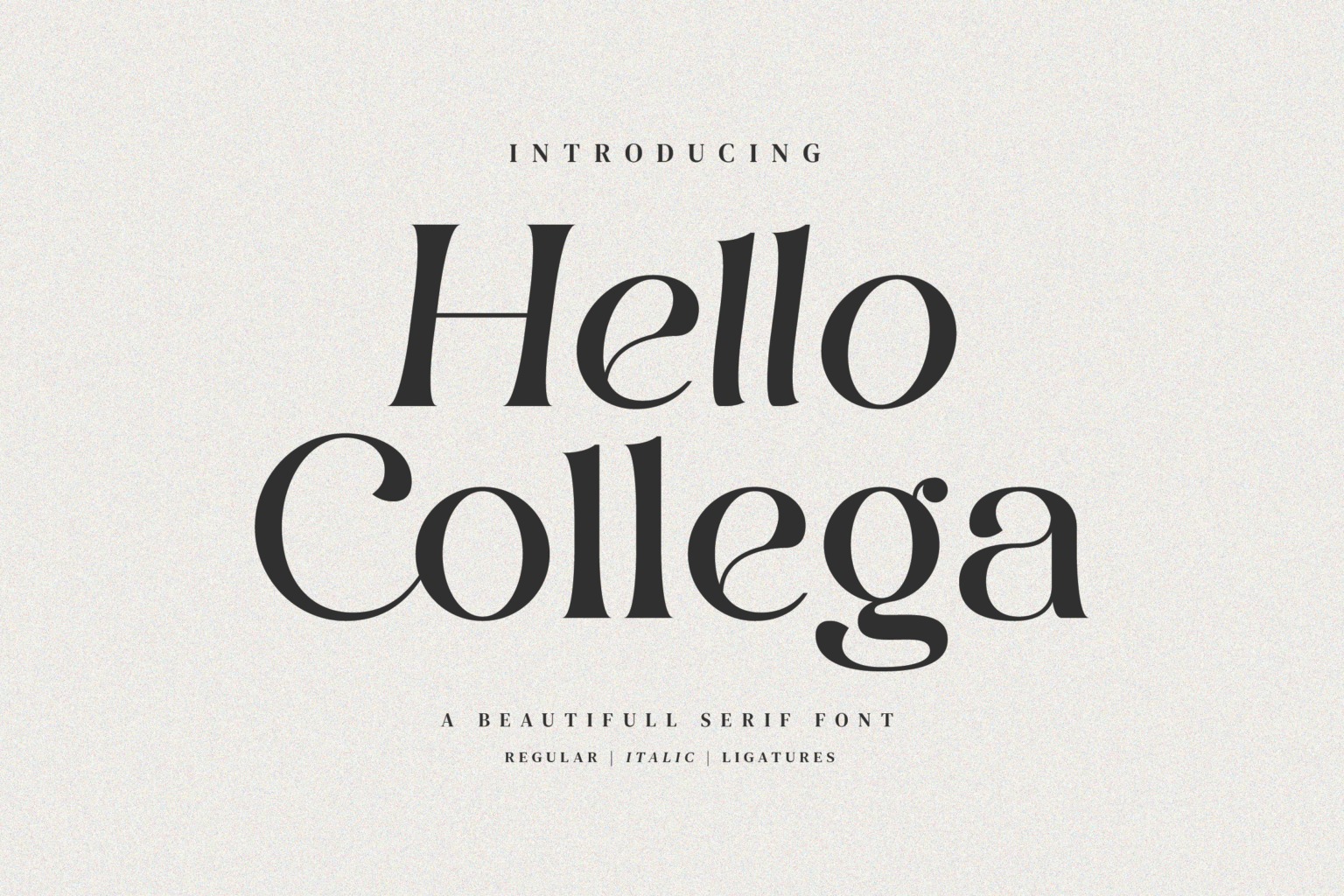
Hello Collega – Beautiful Serif Font
Hello Collega – Beautiful Serif Font is a versatile font designed to adapt beautifully across different design styles, offering dependable readability and balance. Hello Collega Stylish Ligature Typeface, inspired by the famous minimalist logo perfect for the purposes of designing templates, brochures, videos, advertising branding, logos and more.